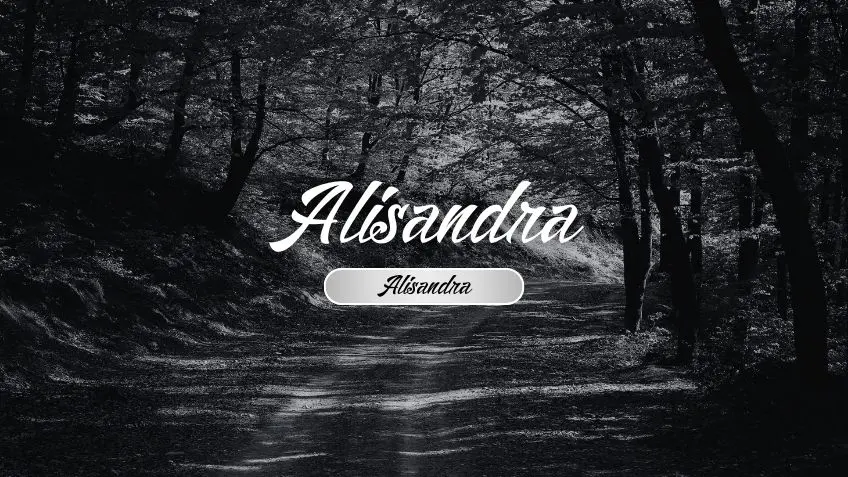
The font Alisandra Demo, designed by Hendra Pratama (Mikrojihad), falls under the Handwritten, Script category & Alisandra font family. Its smooth, flowing letterforms make it a versatile choice for projects that require both elegance and readability. Alisandra is particularly well-suited for Social media graphics, Branding and Logos, Wedding and Event Invitations and Packaging and product design. With its balance of simplicity and decorative appeal, this font brings a polished touch to both personal and professional designs.